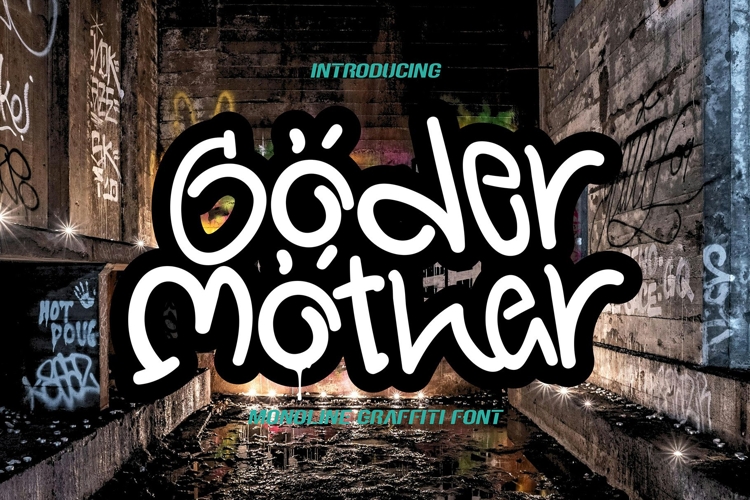
Goder Mother - Monoline Graffiti Font
Step into the vibrant world of street art with Goder Mother – the monoline graffiti font that embodies the spirit of urban creativity and rebellion. More than just a font, Goder Mother is a bold statement of style and attitude, perfect for bringing an authentic street vibe to your designs.
🏙️ Urban Edge: Goder Mother captures the raw energy and spontaneity of graffiti found on city streets. Its monoline design exudes an urban edge that adds an unmistakable flair to any project, making it the ideal choice for designs that demand a dose of street cred.
🎨 Creative Freedom: With Goder Mother, the possibilities are endless. Whether you're designing posters, or digital graphics, this font empowers you to unleash your creativity and push the boundaries of artistic expression. Let your imagination run wild and watch as your designs come to life with urban flair.
🔥 Make a Statement: Leave your mark on the world with Goder Mother. Its bold and expressive style commands attention and sparks curiosity, ensuring your message is seen and remembered in the bustling urban landscape. Stand out from the crowd and make a statement that resonates with street art enthusiasts everywhere.
🌟 Youthful Appeal: Embrace the rebellious spirit of street culture with Goder Mother. Its gritty urban aesthetic resonates with young, creative audiences, making it the perfect choice for projects aimed at capturing the essence of urban youth culture. Connect with your audience on a deeper level and tap into the cultural zeitgeist with this bold and authentic graffiti font.
💡 Versatile Application: From posters to branding, Goder Mother is versatile enough to handle any project with style and flair. Its monoline design adds a contemporary twist to traditional graffiti lettering, allowing you to create designs that are both timeless and on-trend. Whether you're crafting streetwear apparel or promoting a hip urban event, Goder Mother has you covered.
🌆 Cityscape Inspiration: Inspired by the vibrant energy of the city, Goder Mother brings the hustle and bustle of urban life to your designs. Its graffiti style captures the eclectic mix of influences found in street art culture, infusing your projects with an authentic urban vibe. Transform your designs into bold urban masterpieces with Goder Mother – where graffiti meets typography, and creativity knows no bounds. It's time to make your mark on the world with this best-selling monoline graffiti font leading the way.